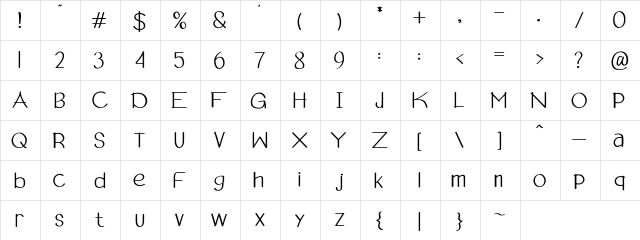
Aurista Regular
Design Context for Aurista Typeface
Aurista is a composed and adaptable typeface that performs quietly and consistently across a wide range of design contexts.